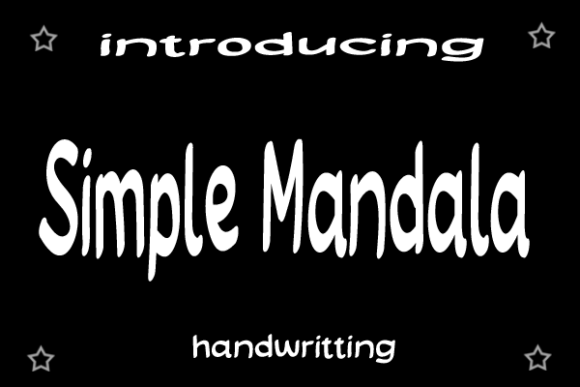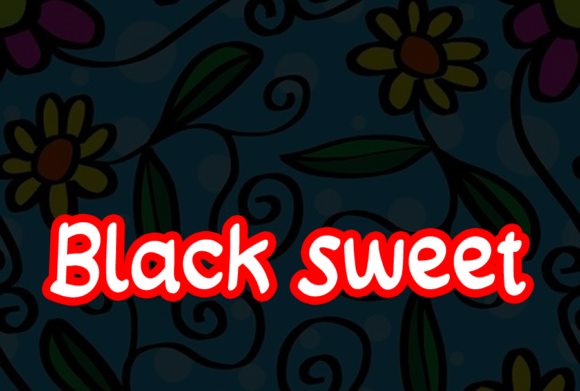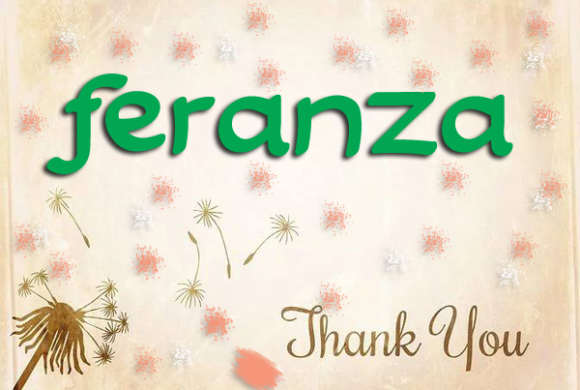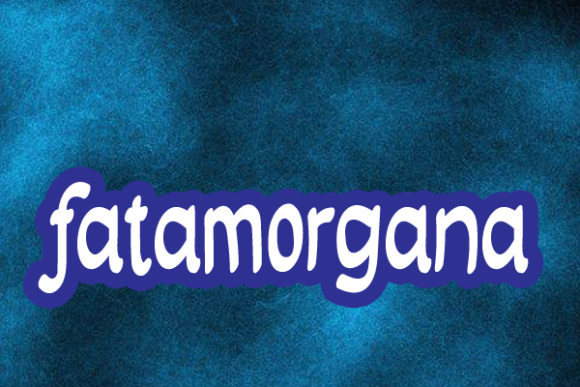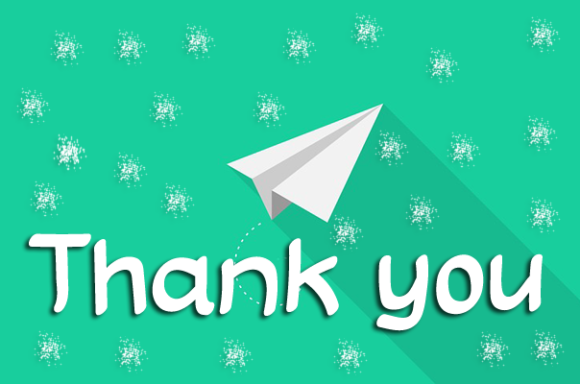
Simple Mandala Font
About Simple Mandala Font
Simple Mandala is a sweet and friendly handwritten font. Its natural and unique style makes it incredibly fitting to a large pool of designs. The only limit is your imagination!